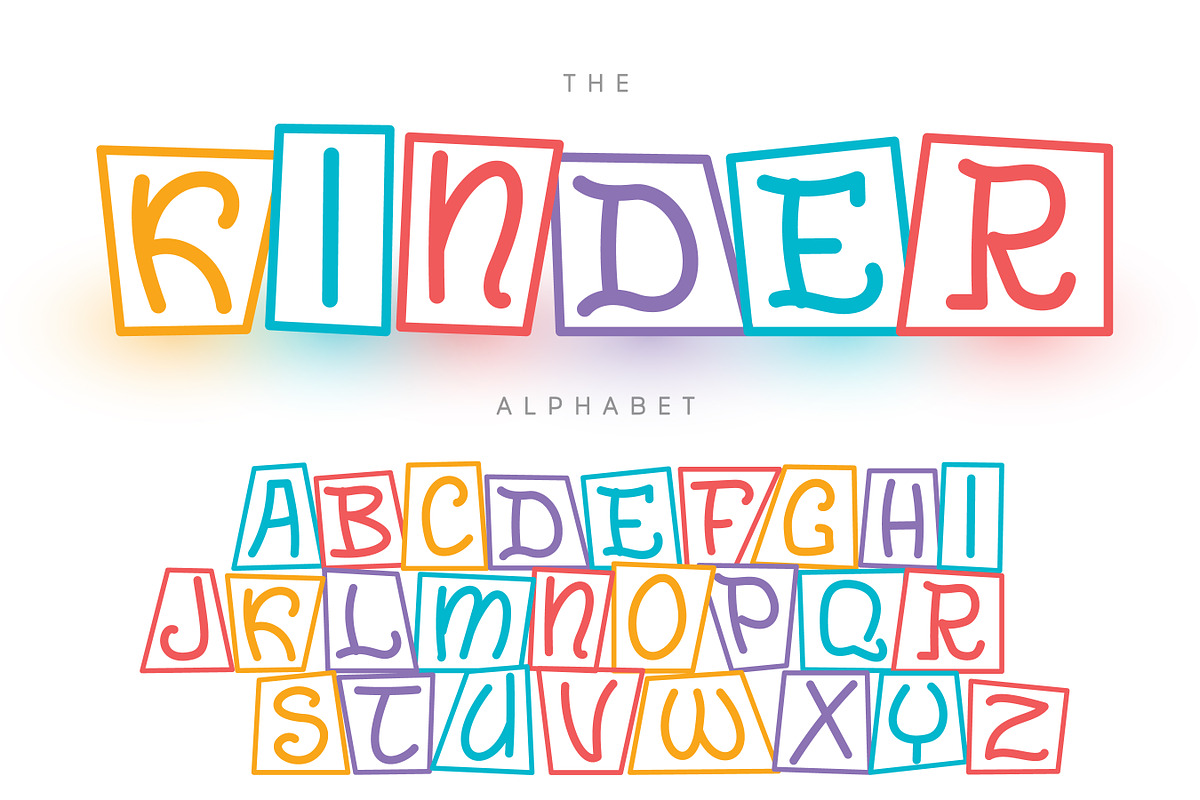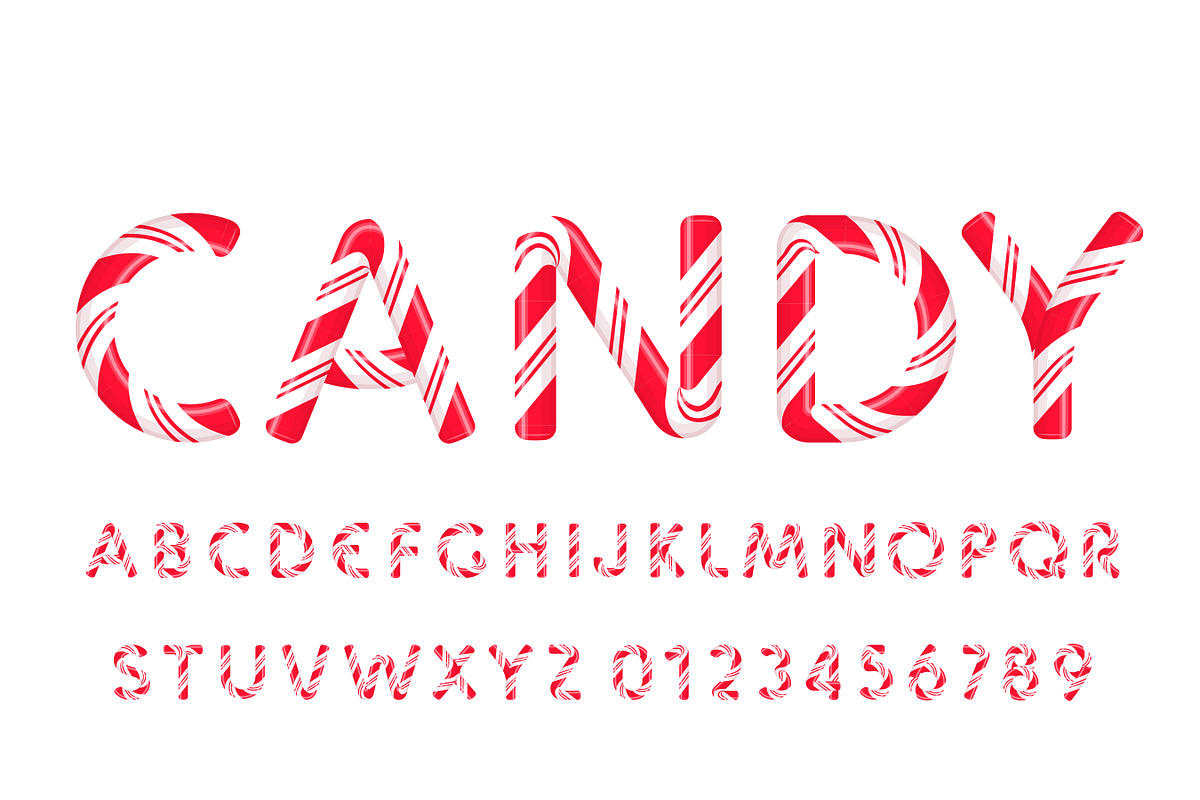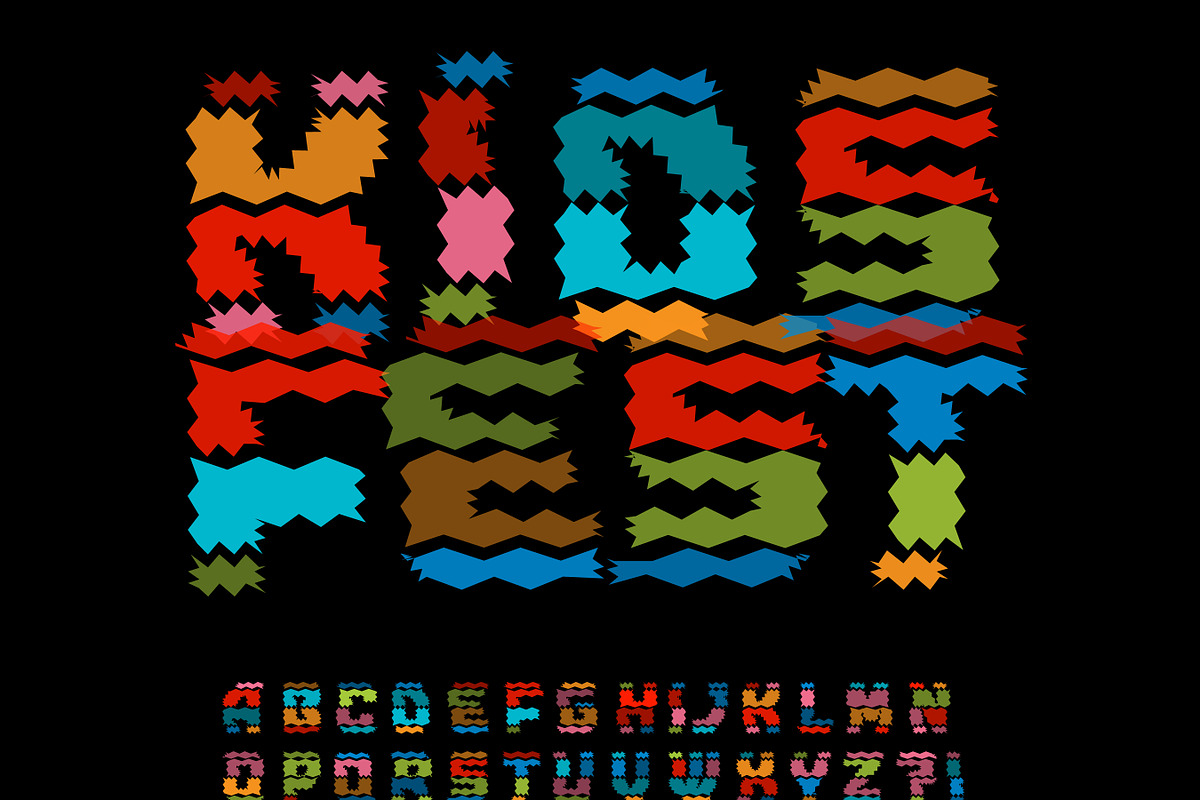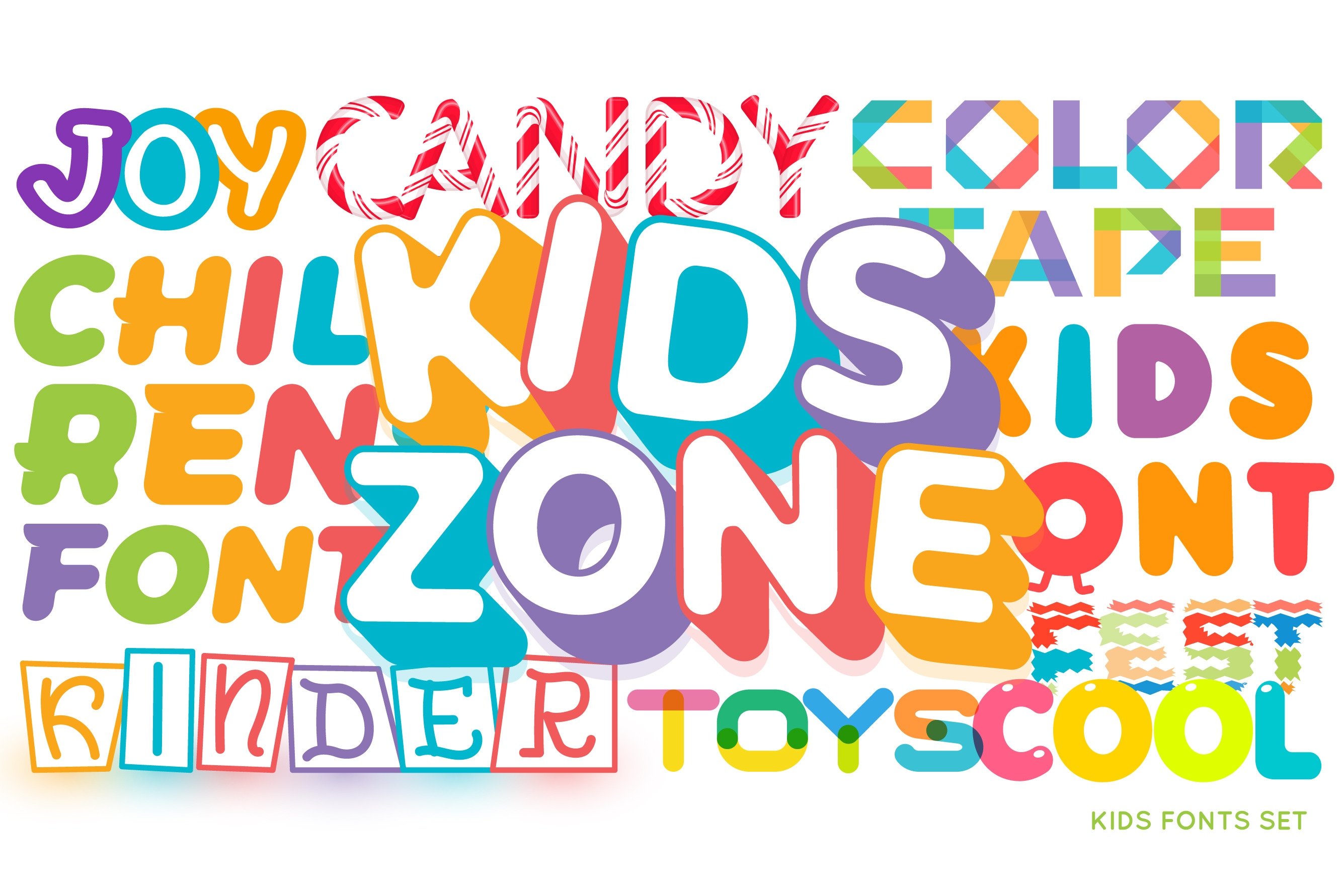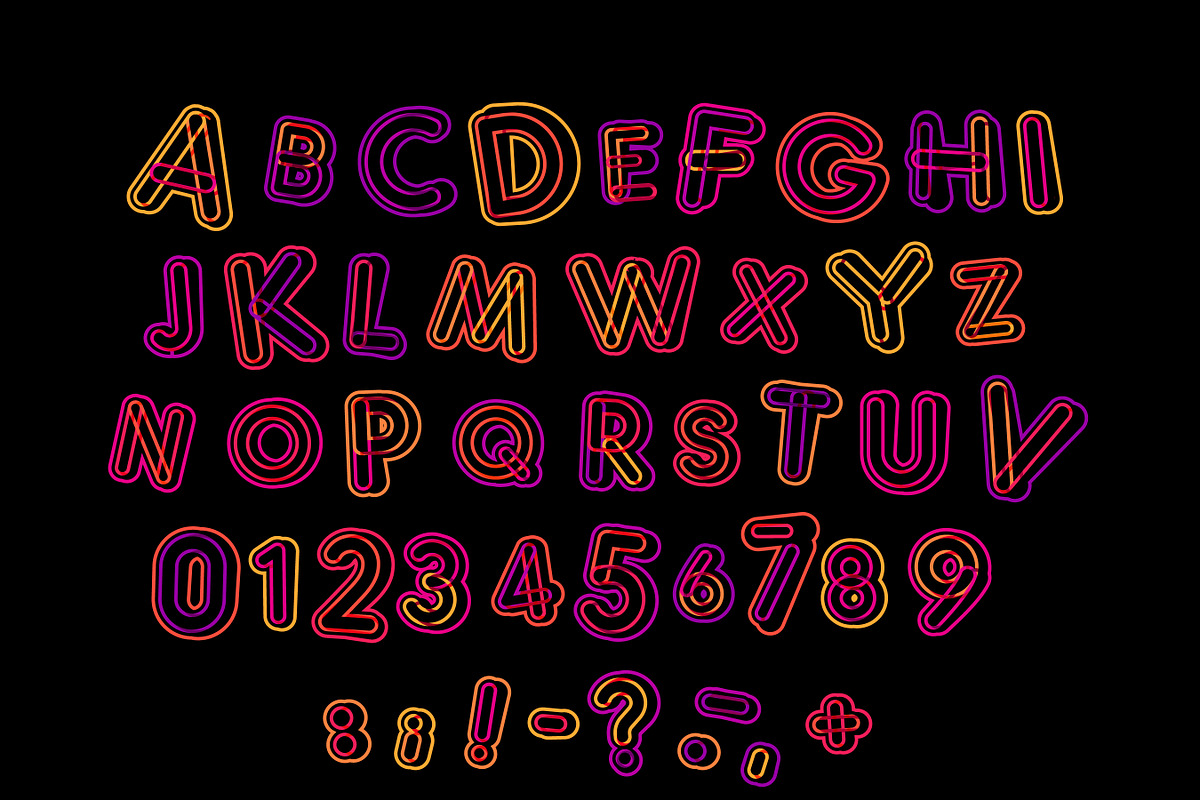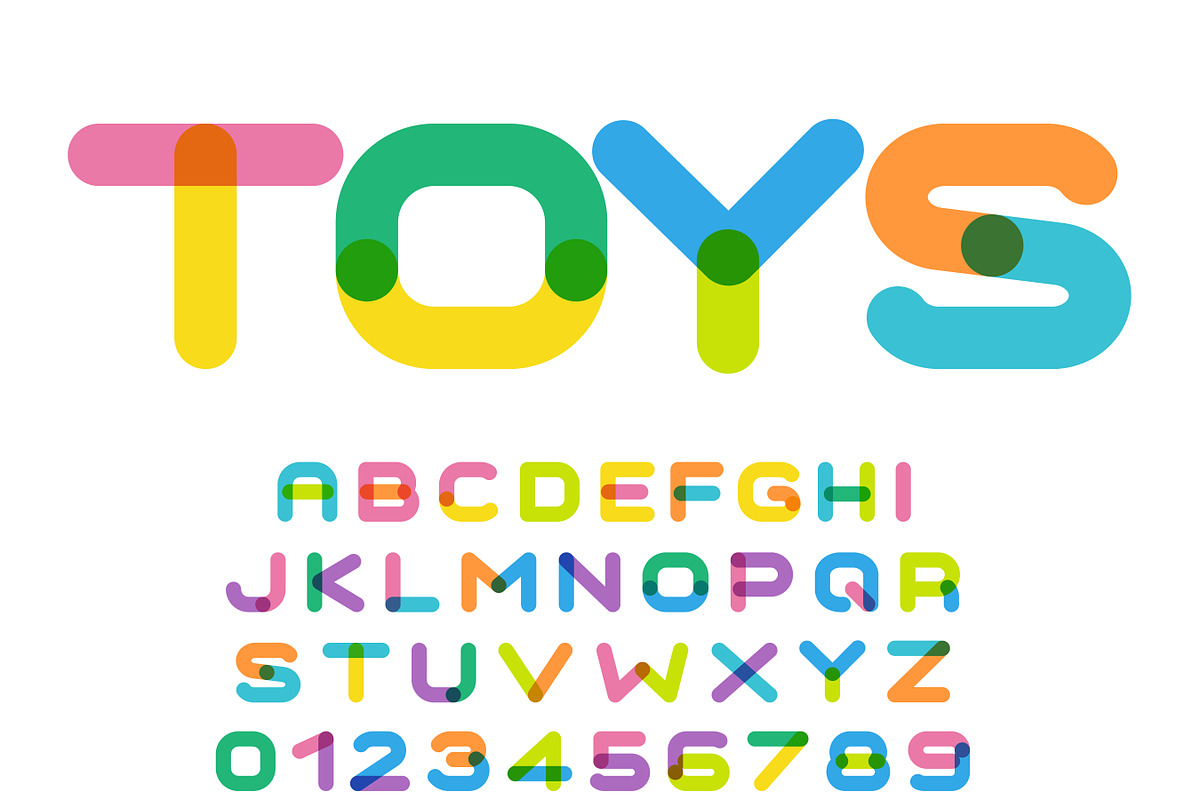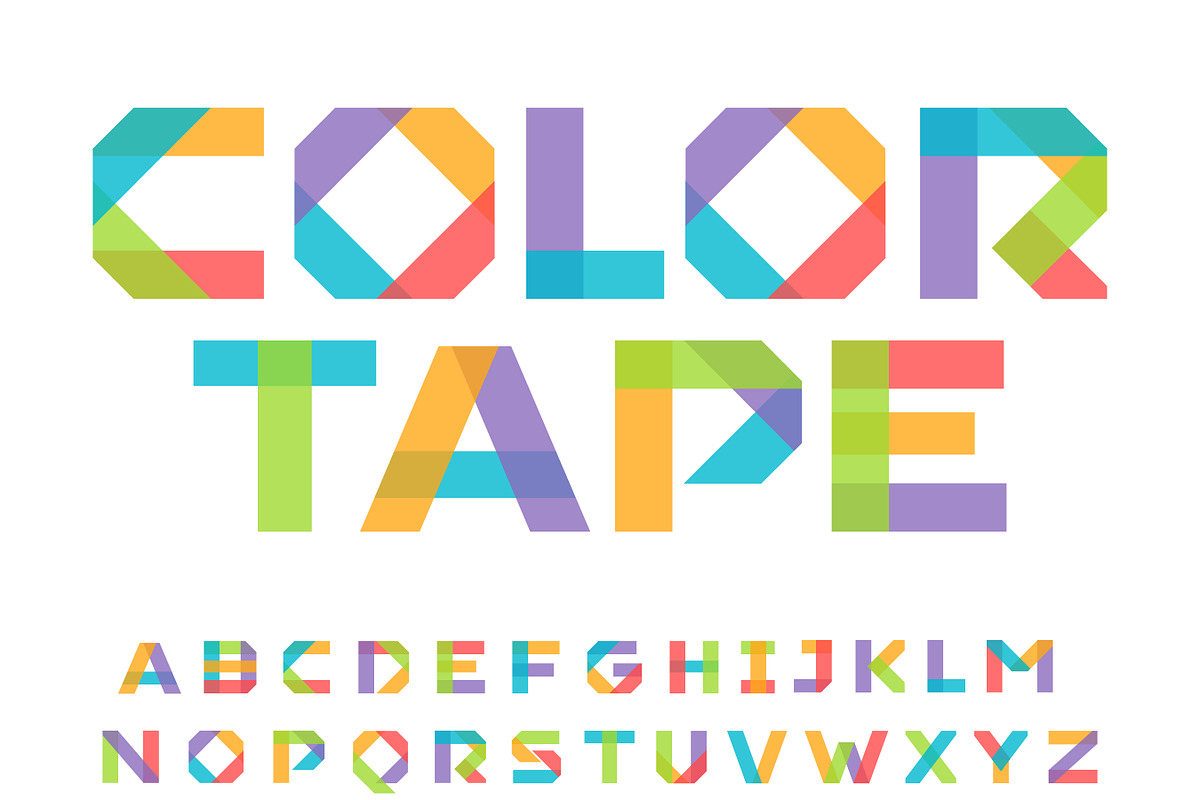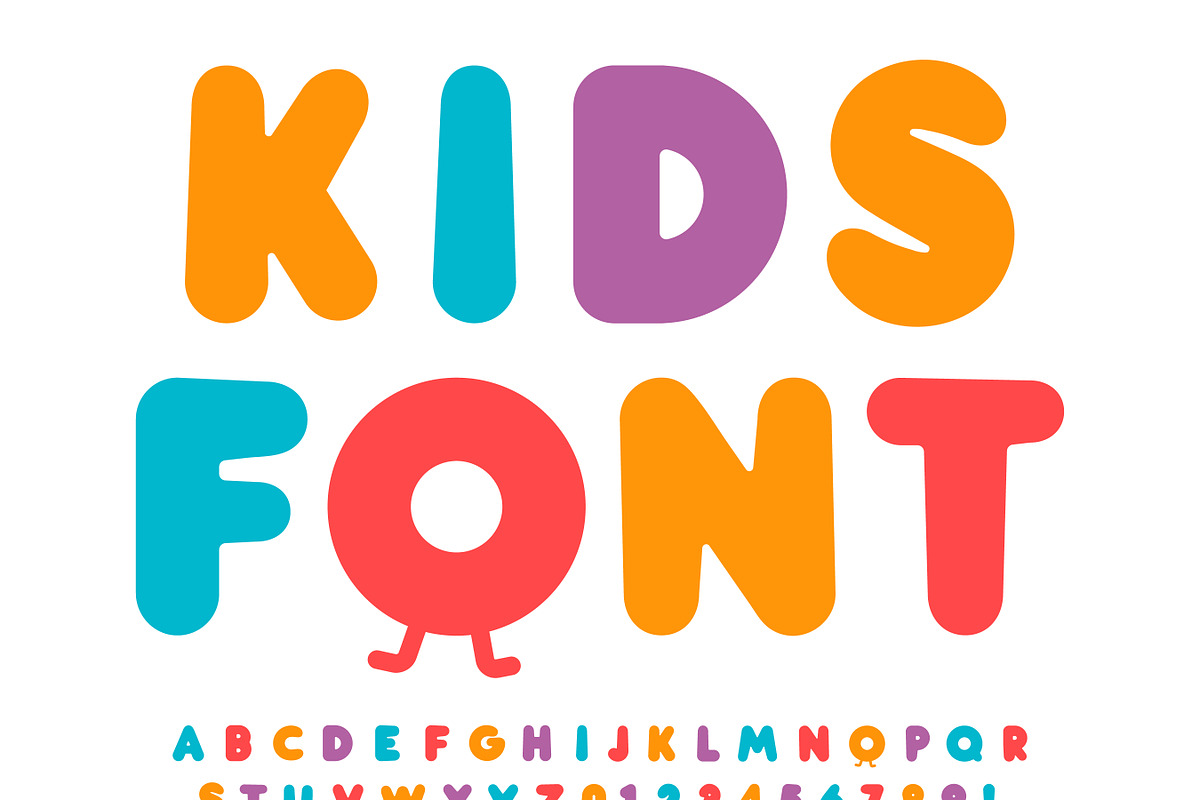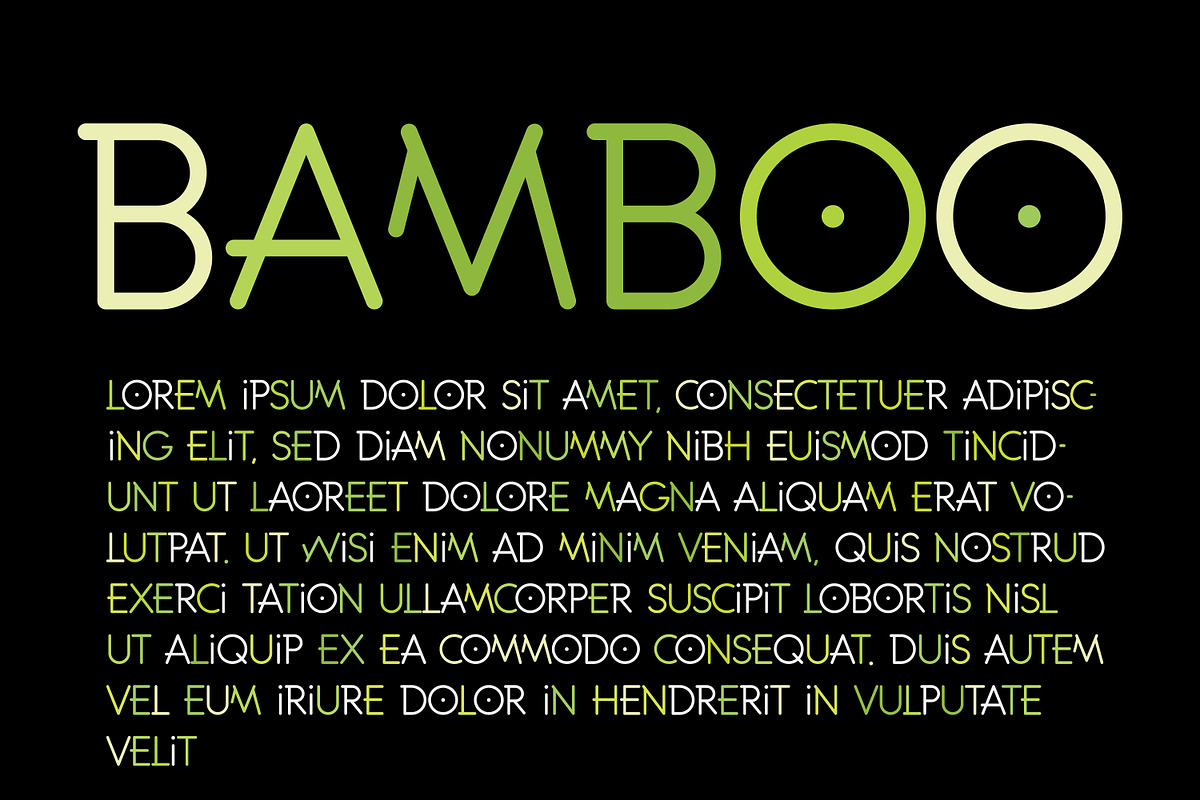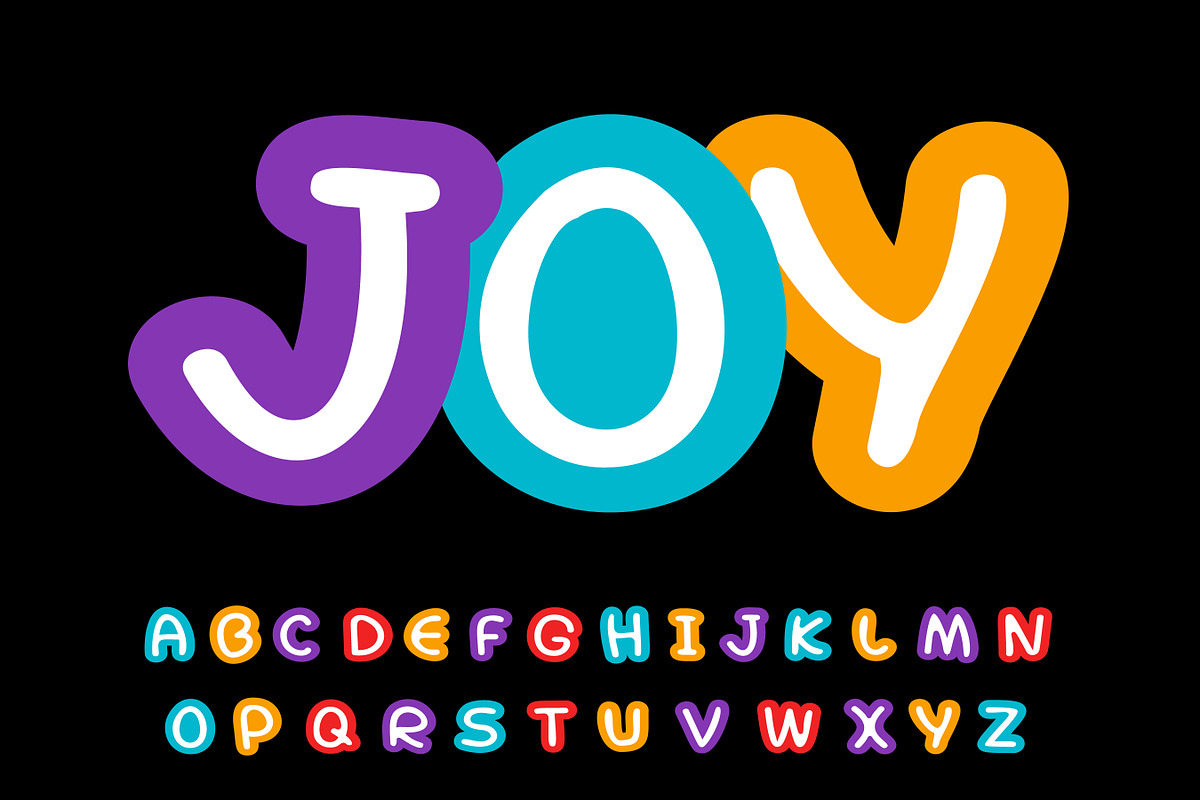
Kids Font Bundle
Kids Font Bundle - 23+ Playful Fonts for Creative Projects
Kids Font Bundle is a collection of 23+ fun, colorful, and easy-to-use fonts designed for children’s and family-oriented designs.
- Children’s books
- Educational materials
- Posters & nursery decor
- Kids brands & logos
- T-shirts, stickers & crafts
- Social media graphics
A versatile, high-value bundle that helps designers create bright, engaging designs for young audiences - all in one affordable package.